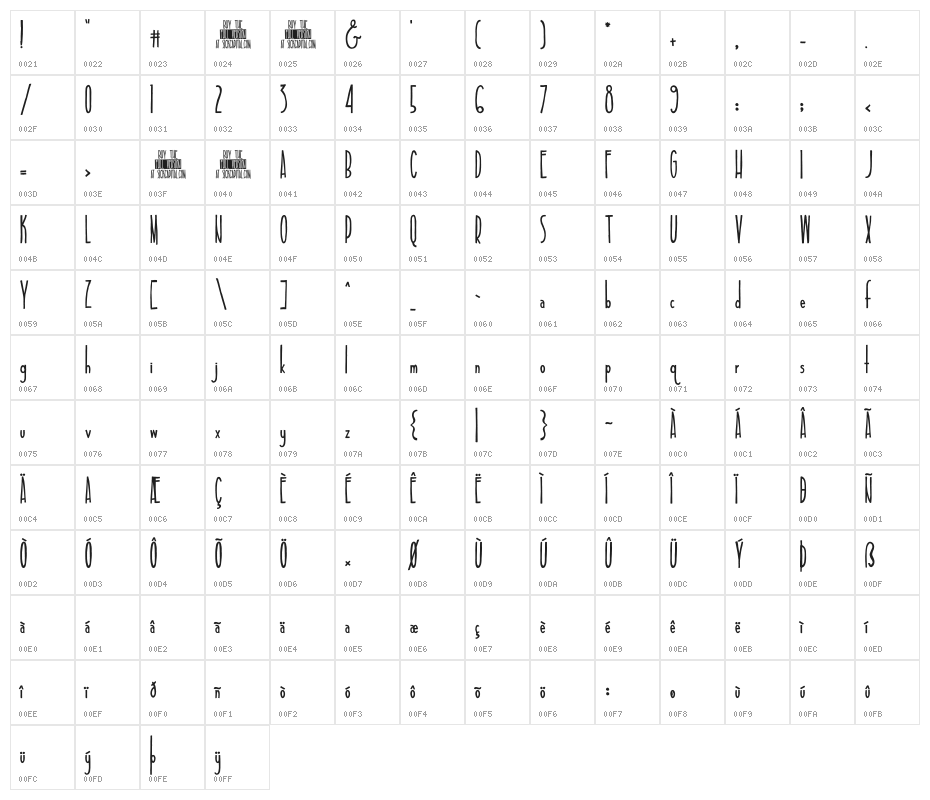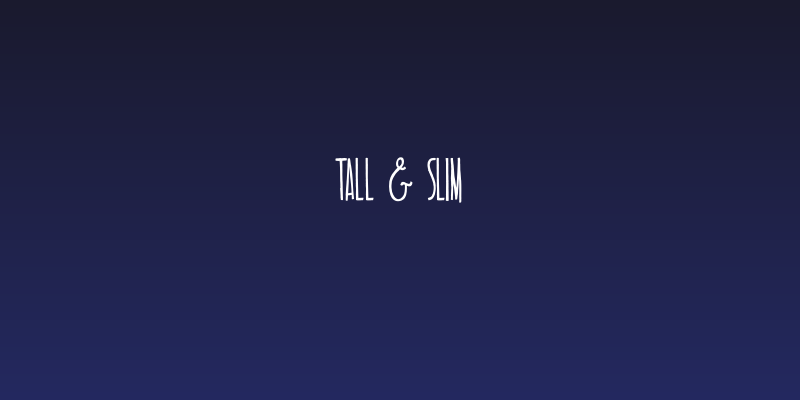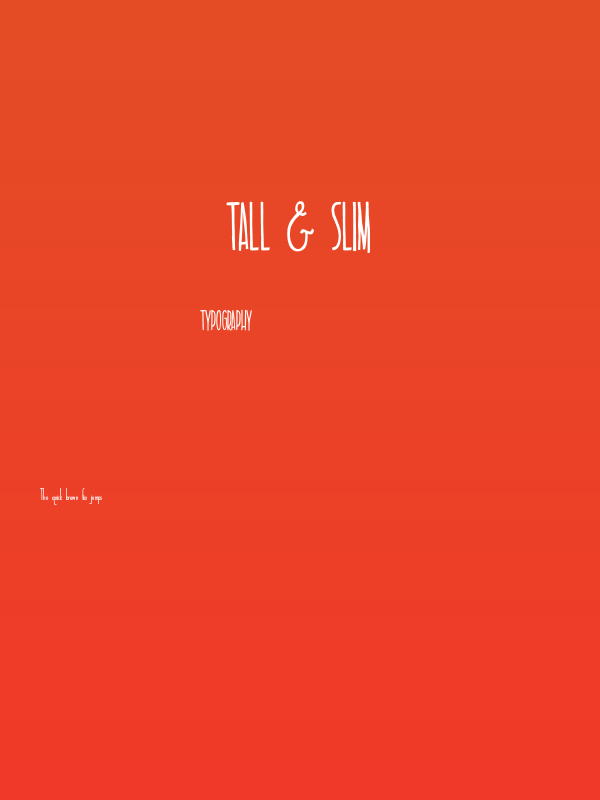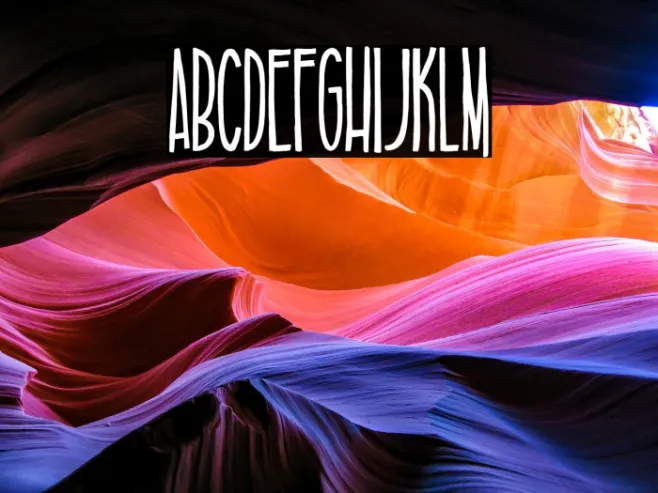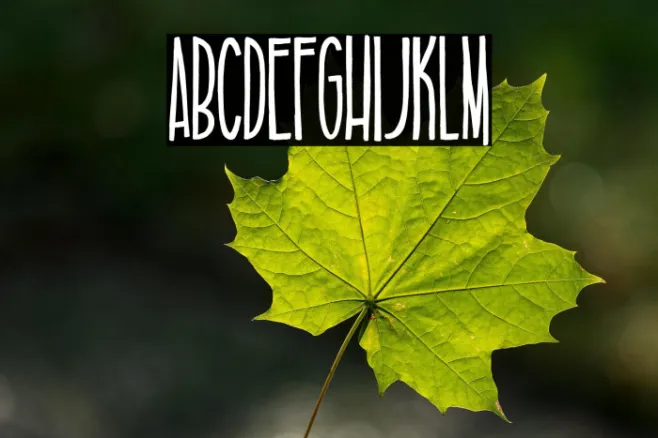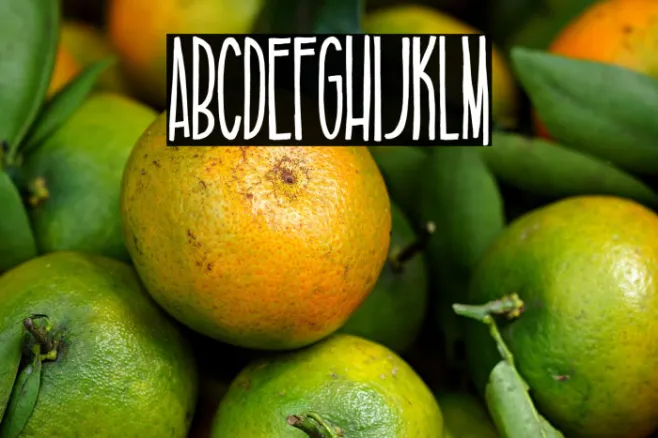
TALL & SLIM Font
TALL & SLIM Description
This font features an elongated and narrow design, giving it a tall and slim appearance. The characters are uniformly thin, with a consistent stroke width that maintains a clean and modern aesthetic. The uppercase letters are particularly striking, with their height accentuating the font's sleekness. The lowercase letters maintain the same slender style, ensuring readability while preserving the overall elegance. Numbers and special characters follow the same design principles, making them cohesive with the alphabet. This font's unique style makes it suitable for projects that require a distinctive and contemporary look.